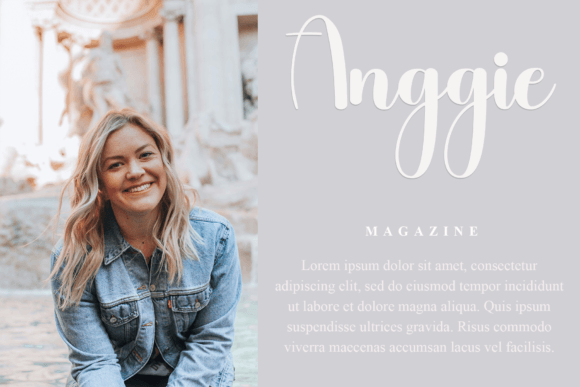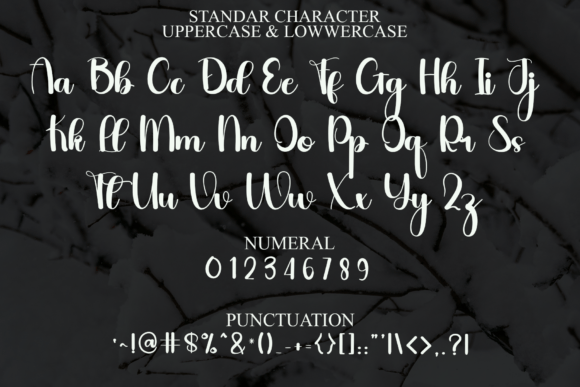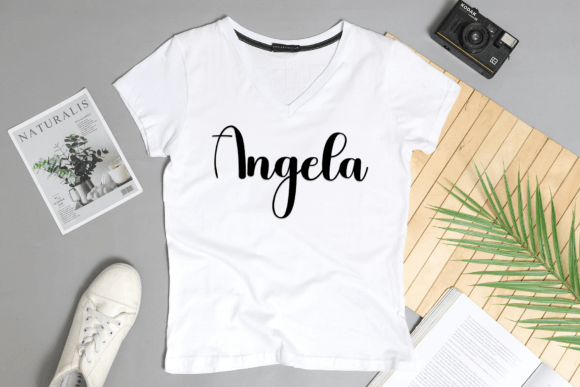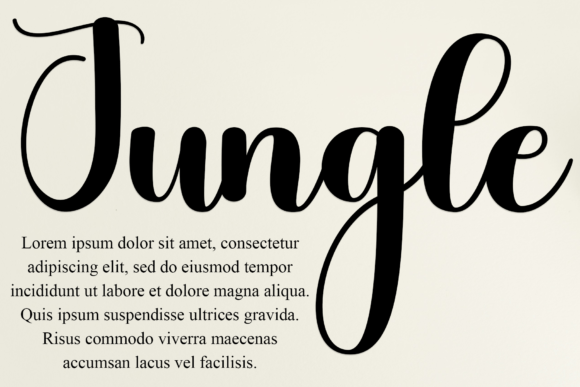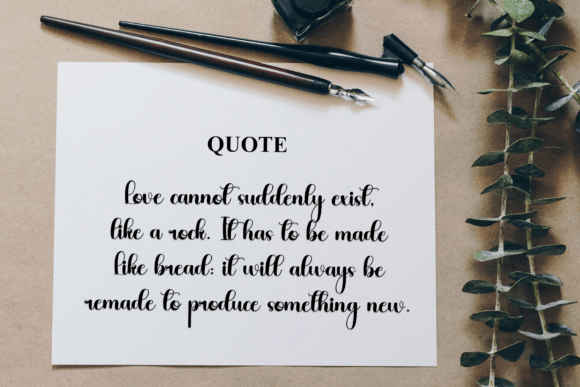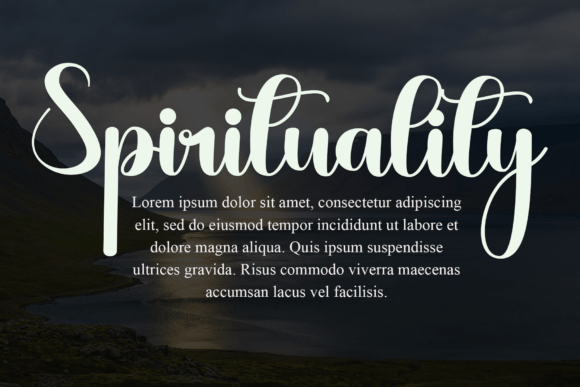
Introducing Christian Font: A Festive and Happy Typeface for the Holiday Season
The holiday season is upon us, and what better way to get into the spirit than with a font that’s as festive and happy as you are? Look no further than Christian Font, a decorative typeface that’s perfect for adding a touch of charm to your designs. Whether you’re creating greeting cards, gift labels, or holiday-themed projects, this font is sure to bring a cheerful and nostalgic atmosphere to your words.
What Makes Christian Font So Special?
Christian Font is more than just a typeface – it’s an experience. With its unique flair and decorative elements, it’s the perfect way to add some holiday magic to your designs. The font features a range of glyphs and ligatures that can be easily accessed thanks to its PUA (Private Use Area) coding. This means that you can get creative with your designs without having to worry about complicated coding or technical issues.
Christian Font is a dream come true for designers and crafters who love to get creative during the holiday season. Whether you’re making holiday cards, crafting gift tags, or creating festive decorations, this font is the perfect addition to your design toolkit. Its versatility and ease of use make it ideal for a wide range of projects, from professional designs to personal crafting projects.
Key Features of Christian Font
- Festive and Happy Design: Christian Font is designed to capture the spirit of the holiday season, with a playful and cheerful design that’s sure to put a smile on your face.
- Decorative Elements: The font features a range of decorative elements, including glyphs and ligatures, that can be easily accessed thanks to its PUA coding.
- Perfect for Holiday Projects: Whether you’re making holiday cards, gift tags, or decorations, Christian Font is the perfect choice for adding a touch of festive cheer to your designs.
Tips and Tricks for Getting the Most Out of Christian Font
Here are a few tips and tricks for getting the most out of Christian Font:
- Experiment with Different Sizes and Colors: Christian Font looks great in a range of sizes and colors, so don’t be afraid to experiment and find the perfect combination for your design.
- Combine with Other Fonts: Christian Font pairs well with a range of other fonts, so try combining it with your favorite fonts to create a unique and eye-catching design.
- Use the Glyphs and Ligatures: The glyphs and ligatures in Christian Font are a key part of its charm, so be sure to use them to add some extra festive flair to your designs.
Christian Font is a festive and happy typeface that’s perfect for adding a touch of holiday cheer to your designs. With its decorative elements, unique flair, and PUA coding, it’s the perfect choice for designers and crafters who love to get creative during the holiday season. So why wait? Download Christian Font today and start creating your own festive and fun designs!